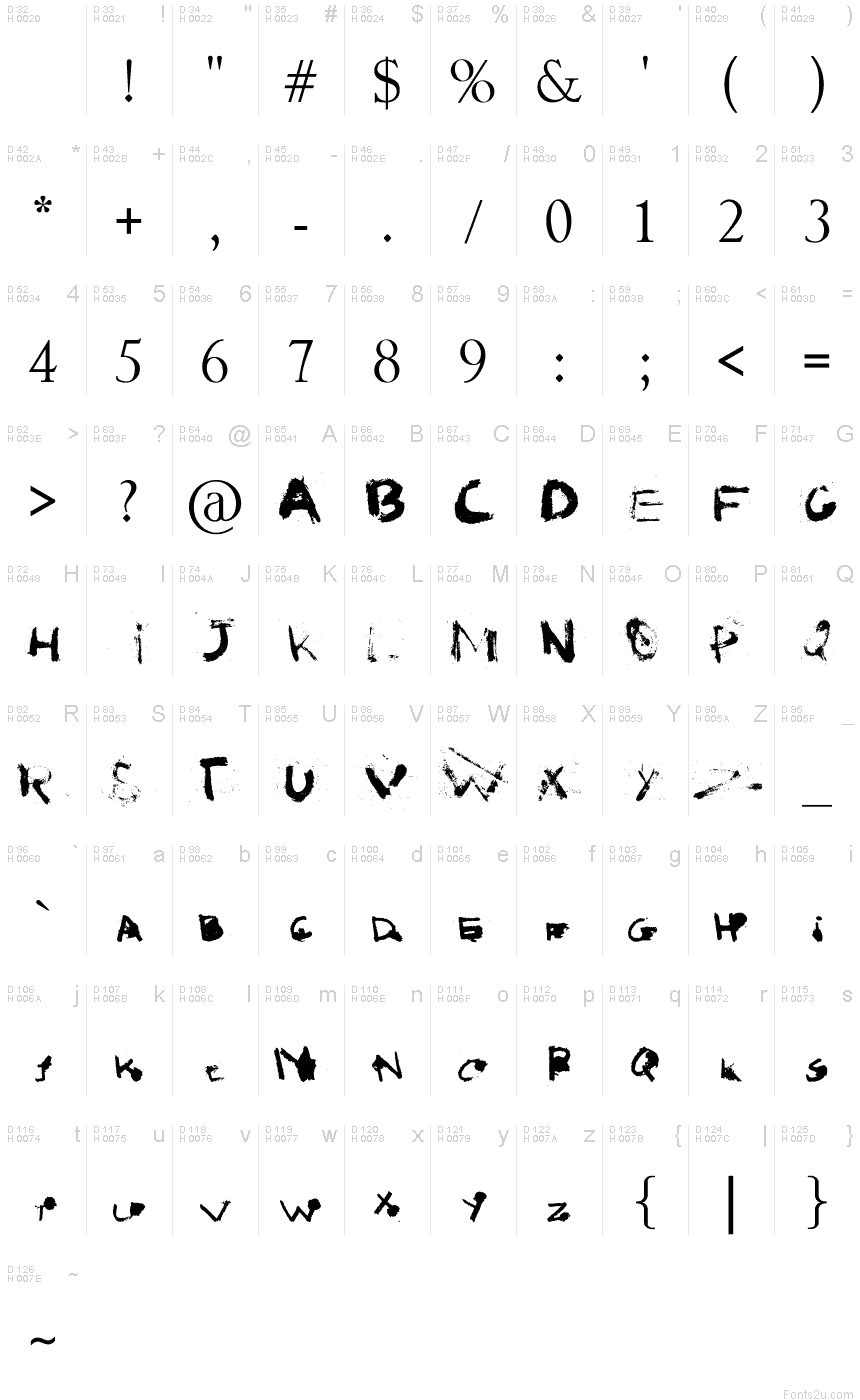
I Love Grunge is a free distressed brush display font with raw, hand-painted lettering. Uneven strokes, dry edges, and scattered ink flecks give the letters the look of a hurried sign made with a loaded brush.
Independent music and streetwear audiences are its clearest match. It can shape album artwork, gig posters, and T-shirt graphics through the same rough physical texture. For labels or event branding, the lettering can become a recognizable painted mark rather than a conventional wordmark.